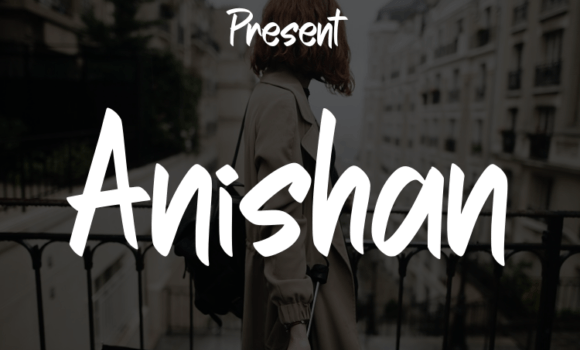
anishan
Anishan Font – Free Download Introduction to Anishan Font Anishan is a script typeface that has a simple style & modern look. 📸 Preview Gallery 4 images 📌 Product Name Anishan Font 👤 Author Eric Kusuma 📂 Category Explore ⬇️